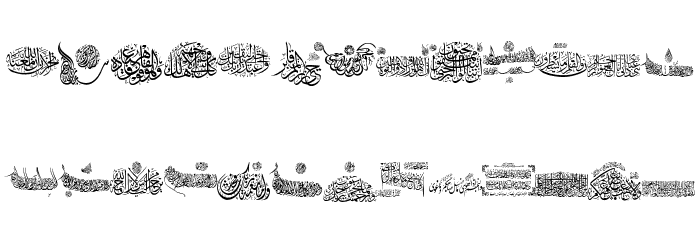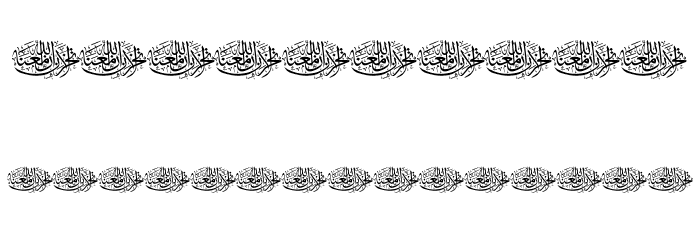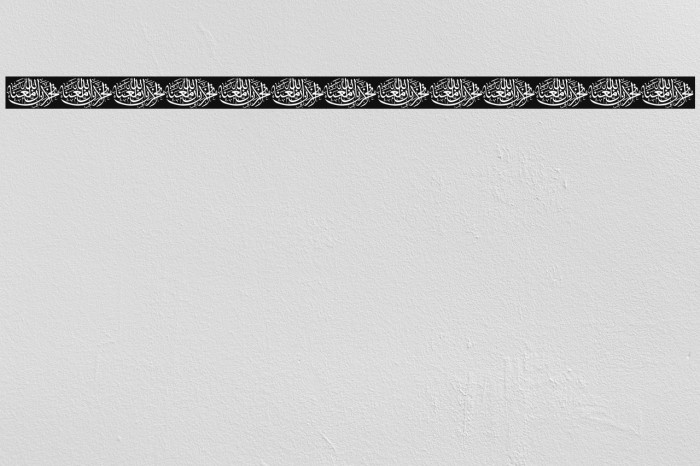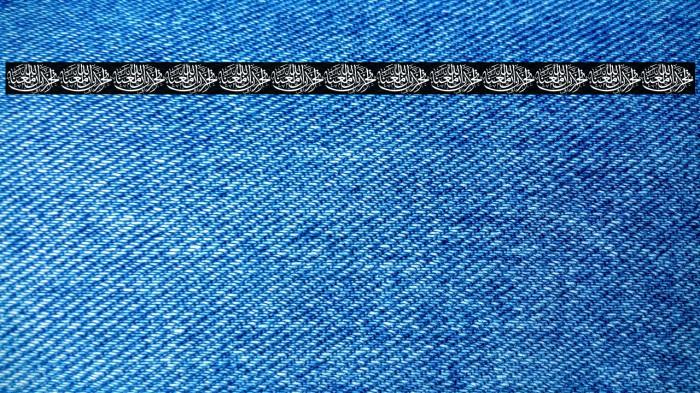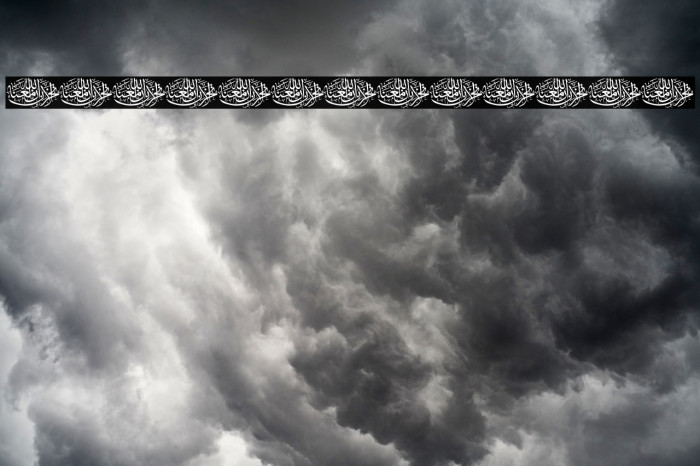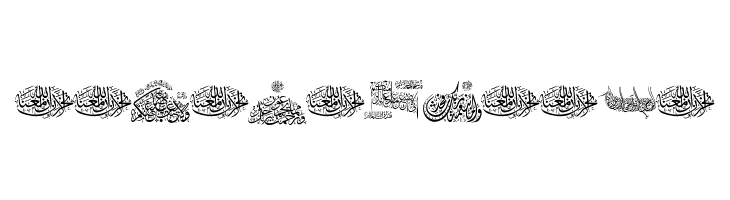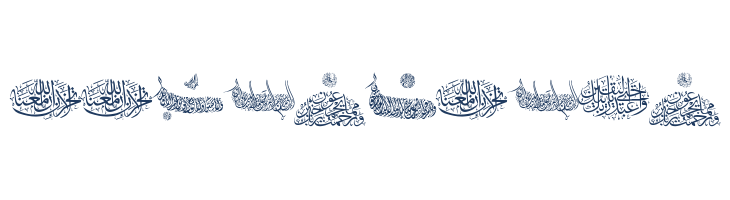
Aayat Quraan 2 Font
This is a highly decorative and intricate Arabic script, featuring elaborate calligraphic elements that are characteristic of traditional Islamic art. The script is composed of flowing, interconnected letters with a strong emphasis on artistic expression. The characters are adorned with ornamental flourishes, creating a visually rich and complex appearance. The design is symmetrical and balanced, often incorporating geometric shapes and patterns. This style is typically used in religious texts and is known for its elegance and spiritual significance.
Intricate and decorative Arabic calligraphy with traditional Islamic art elements.
- Proposed Projects: Ideal for religious texts, art installations, decorative panels, and cultural exhibitions.
- Character Spacing: Tight
- Overall Style: Traditional, Decorative
- Use Case: Religious texts, Art, Cultural displays